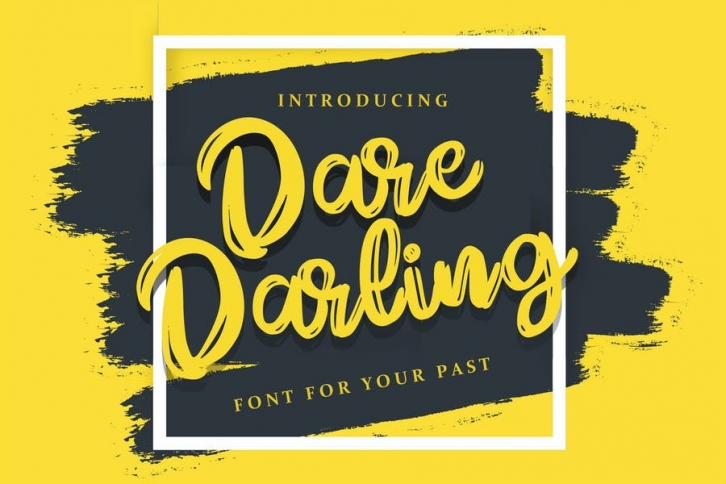
Dare Daling | Script Brush Font with a calligraphy style, So beautiful on invitation like greeting cards, branding materials, business cards, quotes, posters, and more!
• Tons of glyphs
• Alternates and Ligatures
• Punctional
• Fonts include Multilingual Support